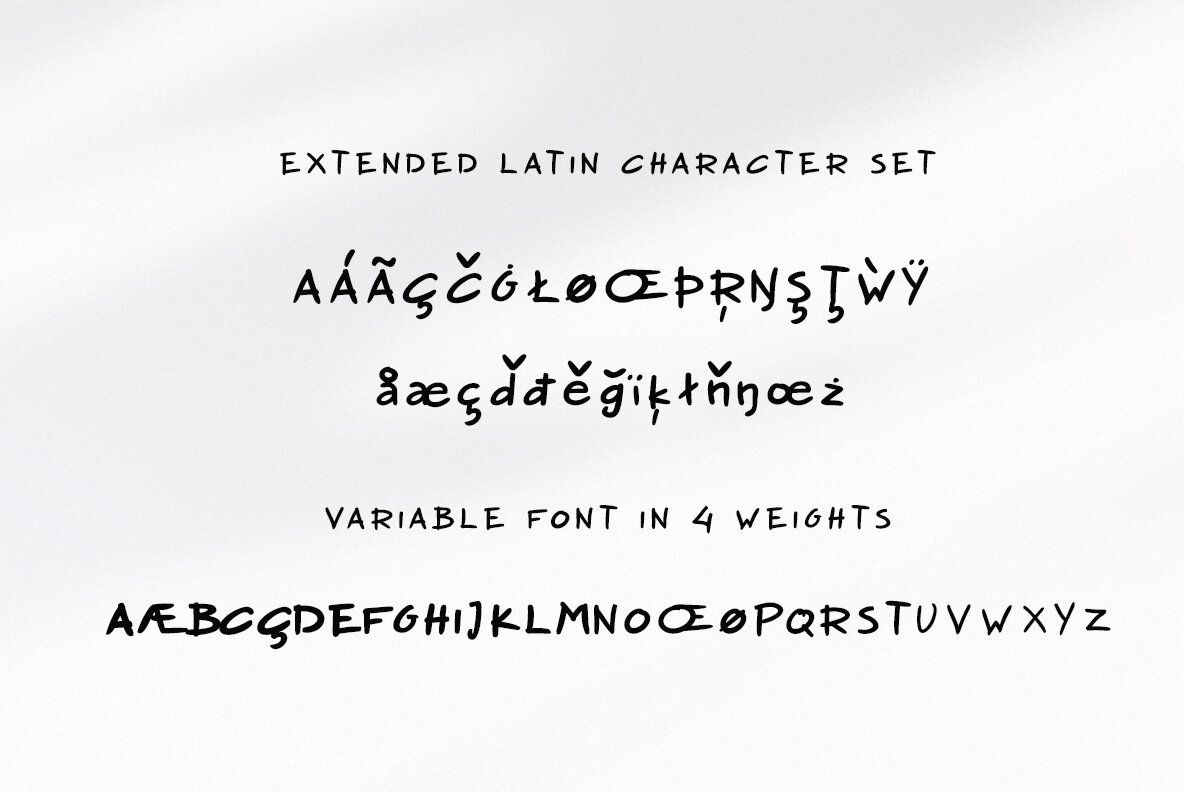
Nadoco Variable Handwritten Font
Nadoco Variable Handwritten Font.
This font is an adorable hand-made variable font with five weights and a lot of personality. From "hand-written" quotes on Pinterest and Instagram, to product packaging design, and food branding projects, this font is so versatile that it can cover them all.
- Extended Latin Characters
- Greek Characters
- Numerals